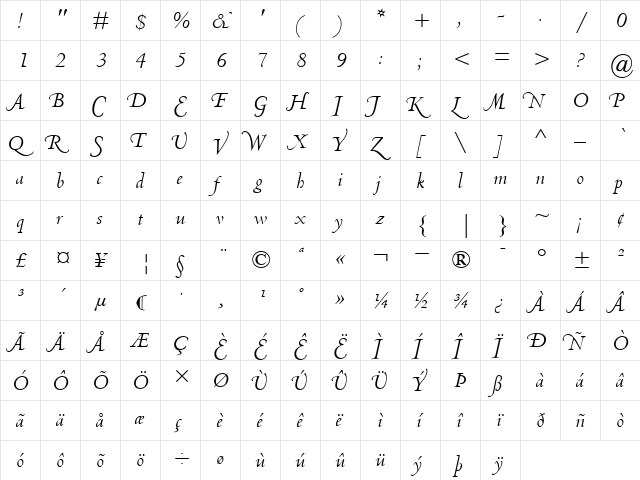
CentaurMTSwashCapitals RomanItalic Font Preview
CentaurMTSwashCapitals RomanItalic
Design Context for CentaurMTSwashCapitals Typeface
CentaurMTSwashCapitals flows with the natural rhythm of handwritten lettering, making it ideal for designs that call for warmth and personal expression.
Font Pairing: Combine CentaurMTSwashCapitals with a simple geometric sans for maximum contrast — the tension between flowing curves and clean structure is a classic typographic pairing.
Pro Tip: Pair CentaurMTSwashCapitals with a clean sans-serif for supporting text. The contrast between fluid script and geometric structure creates an elegant typographic hierarchy.